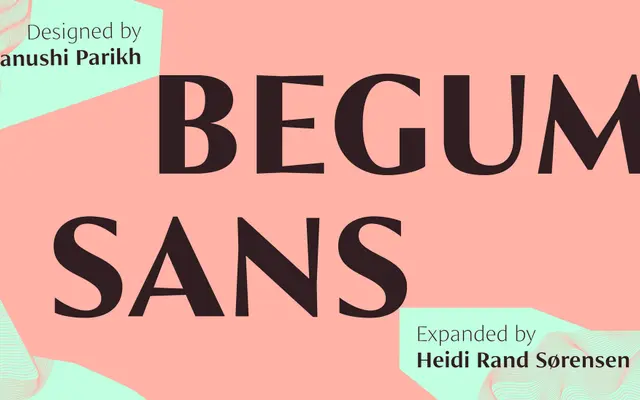
A five-weight Latin sans-serif belonging to the wider Begum family, which extends across Latin, Devanagari and Tamil scripts.
Begum Sans offers five weights from Light to Bold, designed as the Latin member of a broader multi-script type system that includes Devanagari and Tamil siblings. The family's cross-script scope gives it a grounding in South Asian typographic traditions, which informs its proportions and spacing. Suitable for editorial and interface work where a clean sans with a broader cultural context is preferred.
Begum Sans is a Latin sans-serif with clear humanist proportions, related to the broader Begum family which spans Latin, Devanagari and Tamil scripts, suggesting a design approach rooted in multi-script harmony.